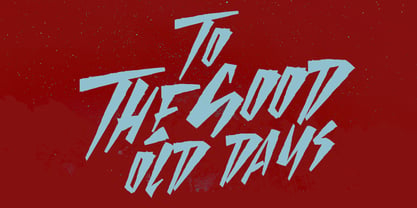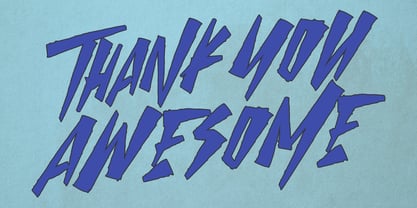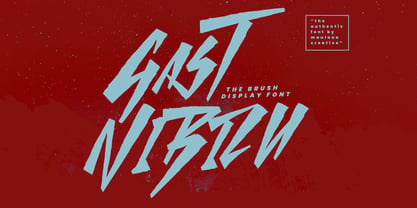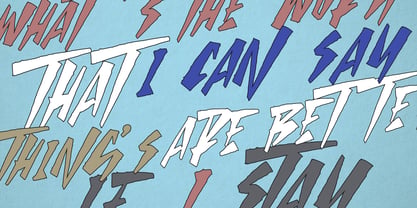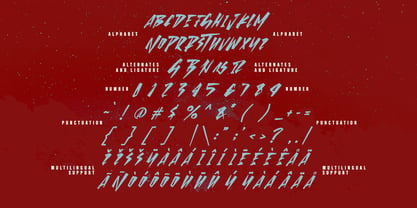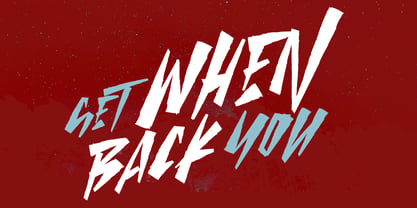
MC Gast Nibizu
by Maulana Creative
The MC Gast Nibizu Font Family was designed by Gilang Maulana and published by Maulana Creative. MC Gast Nibizu contains 1 styles. More about this family
Give your designs an authentic brush handcrafted feel. “Gast Nibizu Brush Font” is perfectly suited to signature, stationery, logo, typography quotes, website header, branding and more.
Designers: Gilang Maulana
Foundry: Maulana Creative